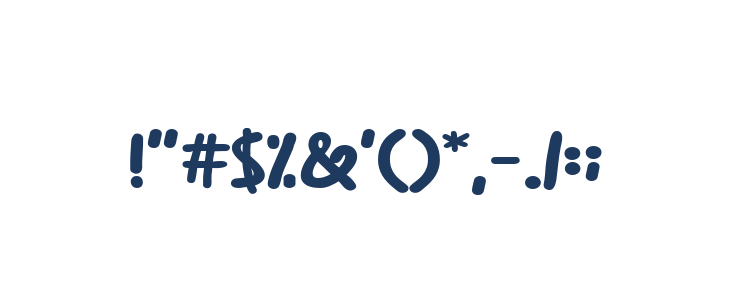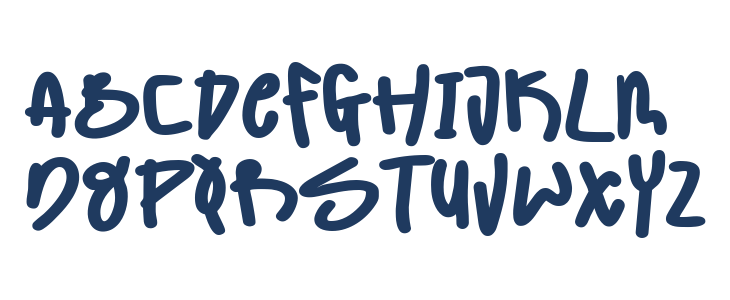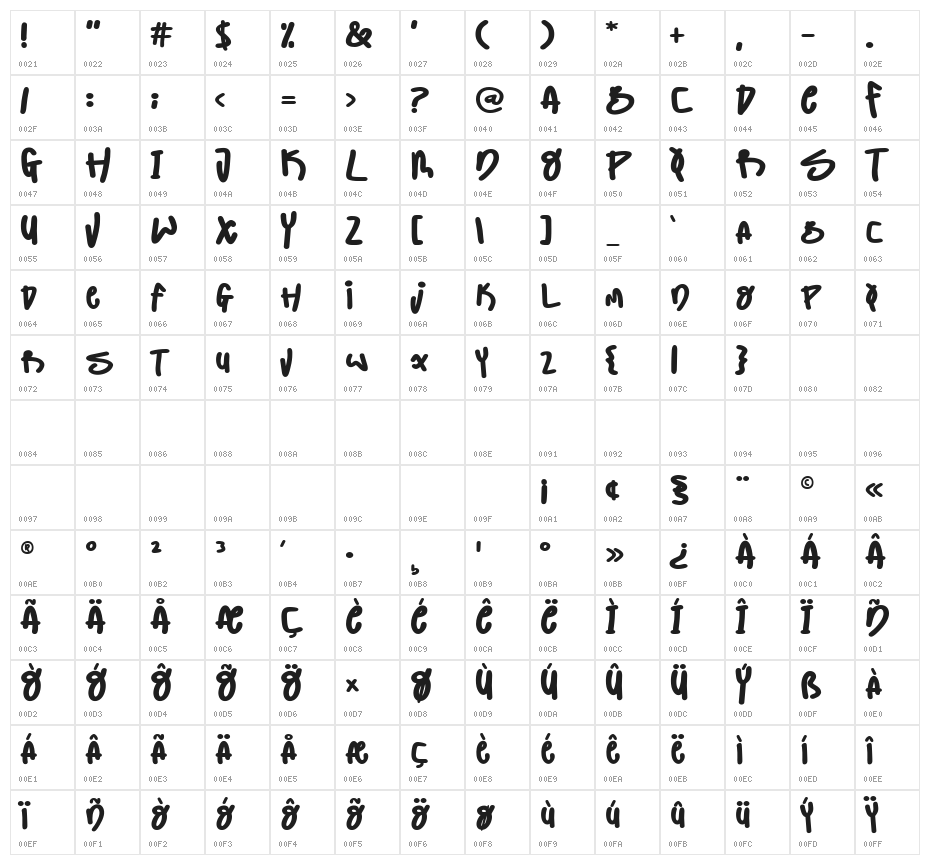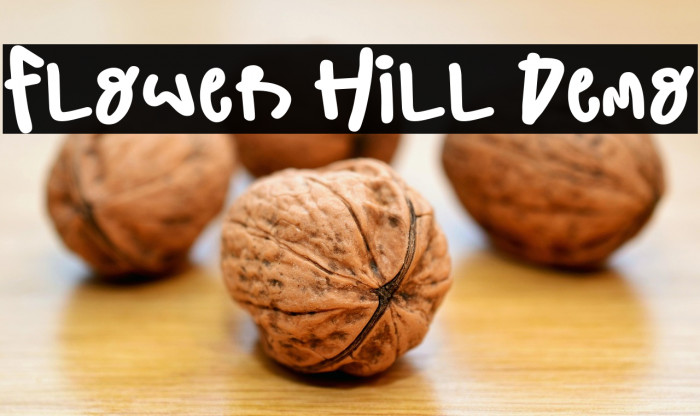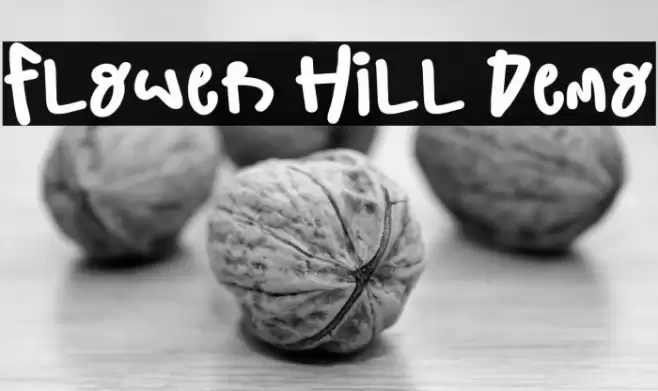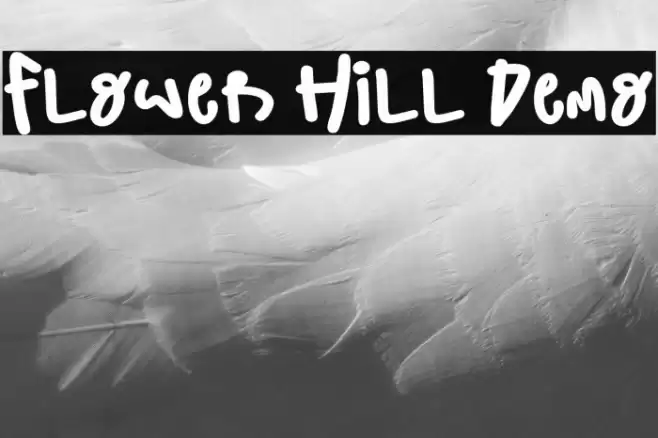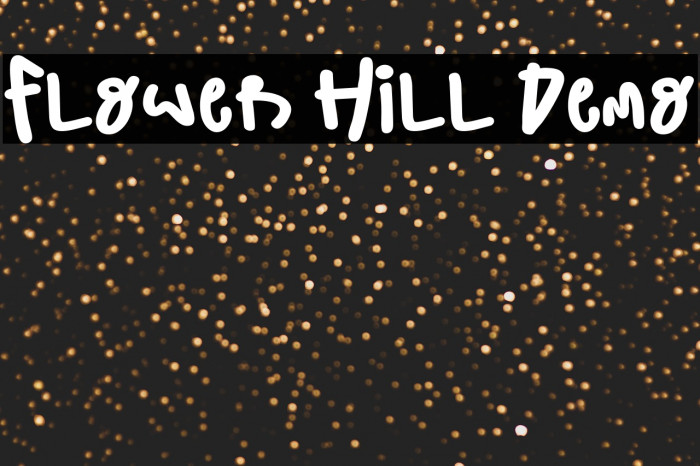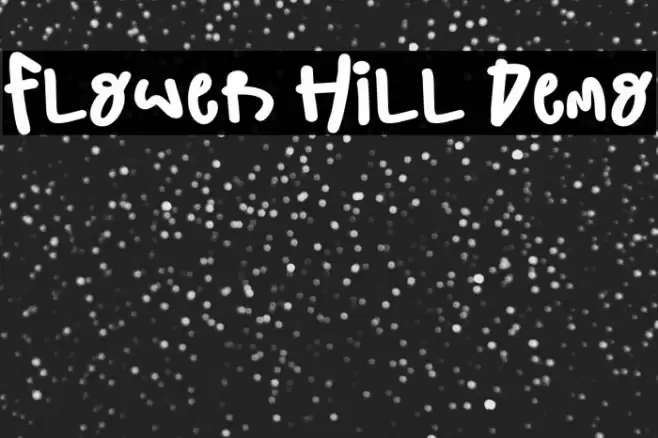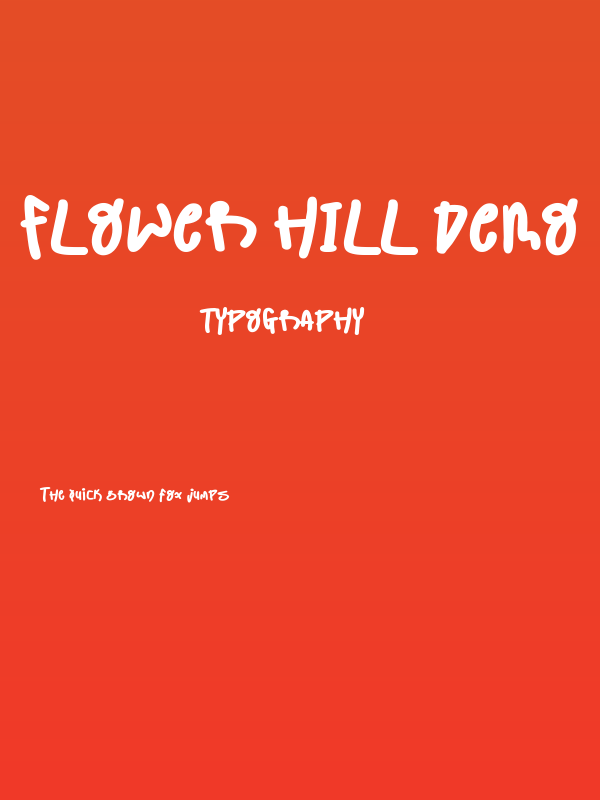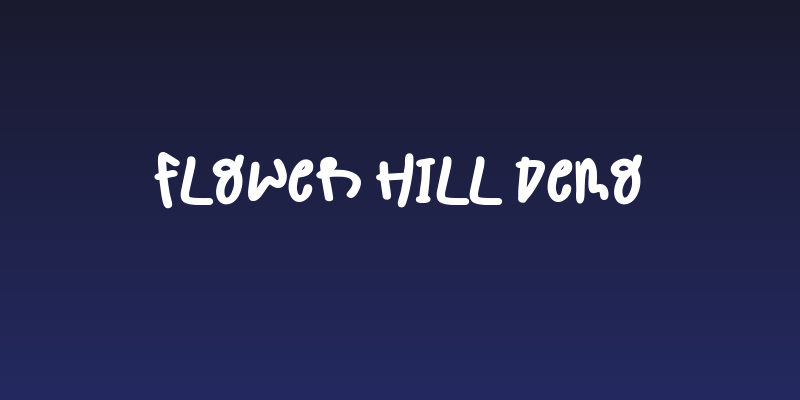
Flower Hill Demo Font
Flower Hill Demo Description
A playful, handwritten style font with bold, rounded characters and a casual, informal appearance.
| Overall Style | Casual, Playful, Handwritten |
| Use Case | Headlines, Posters, Children's books, Creative projects |